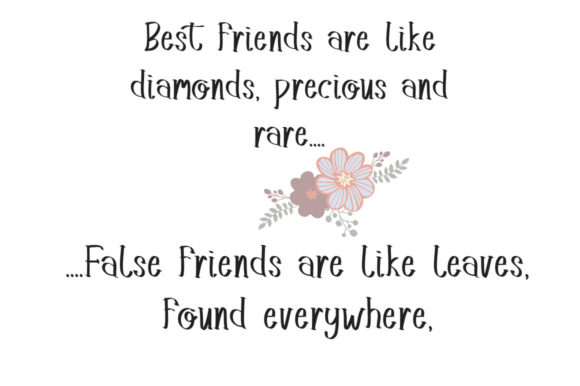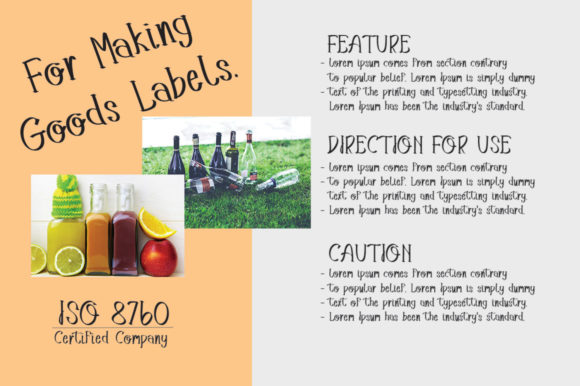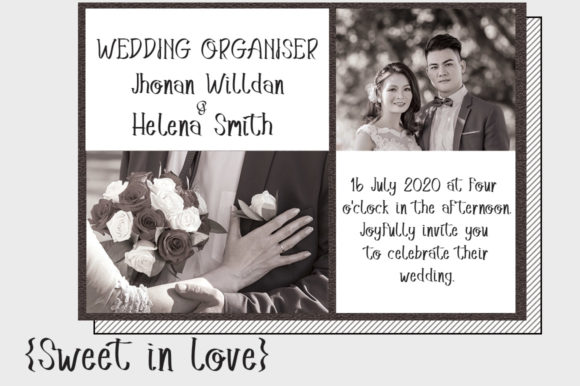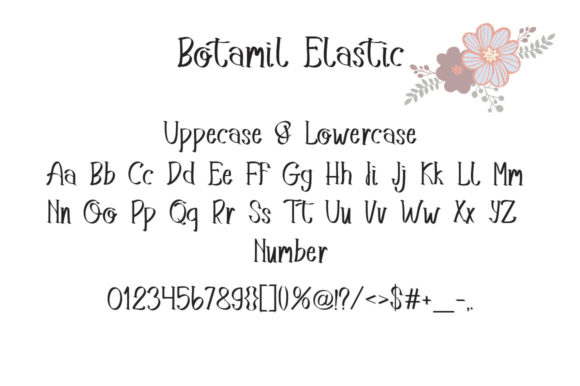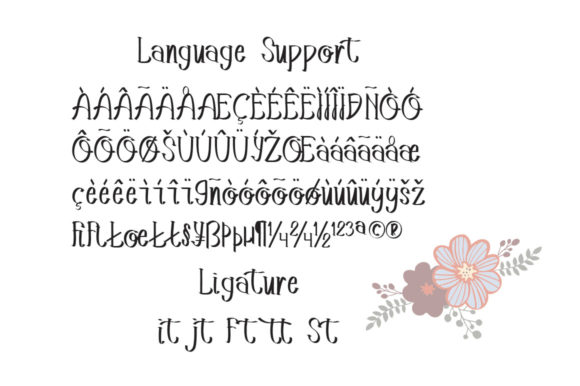
Botamil Elastic Font
About Botamil Elastic Font
Botamil Elastic is a cute and casual serif font with an incredibly friendly feel. Whether you’re looking for fonts for Instagram or calligraphy scripts for DIY projects, this font will turn any creative idea into a true piece of art!